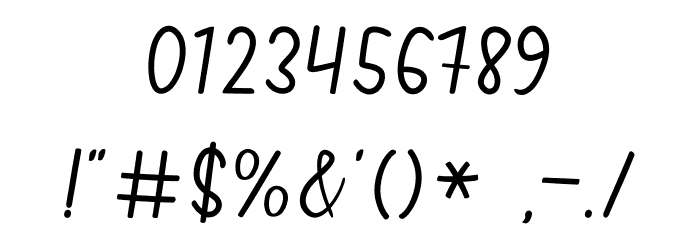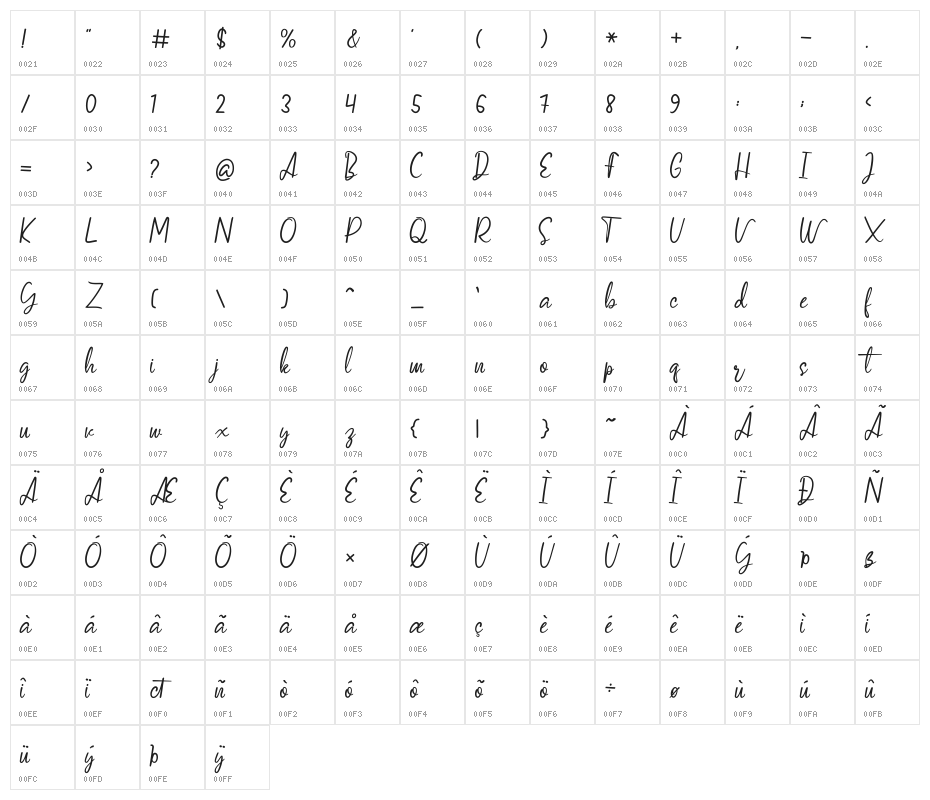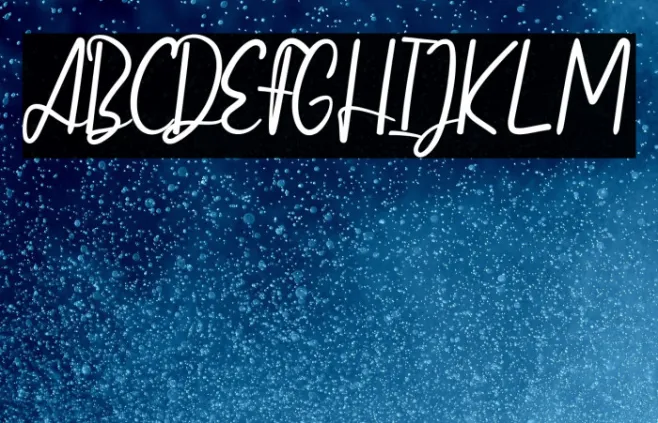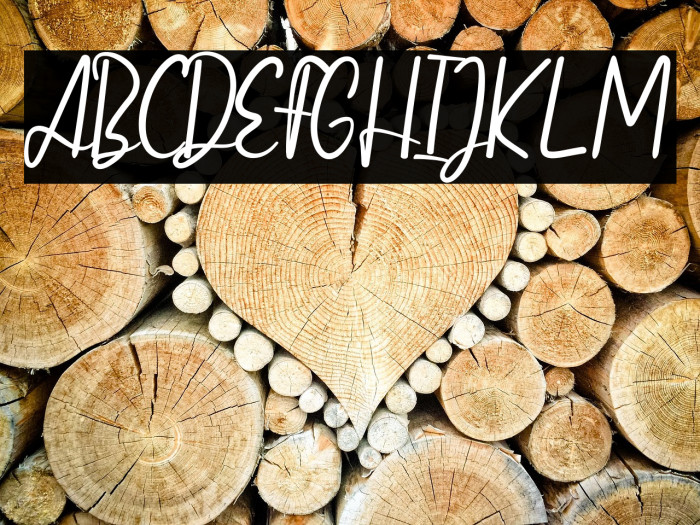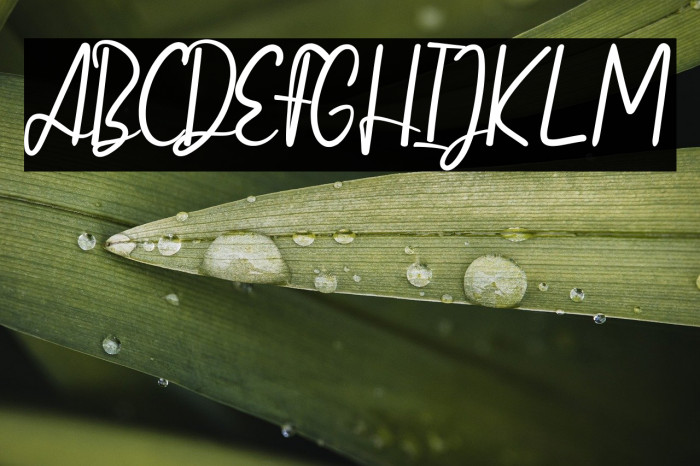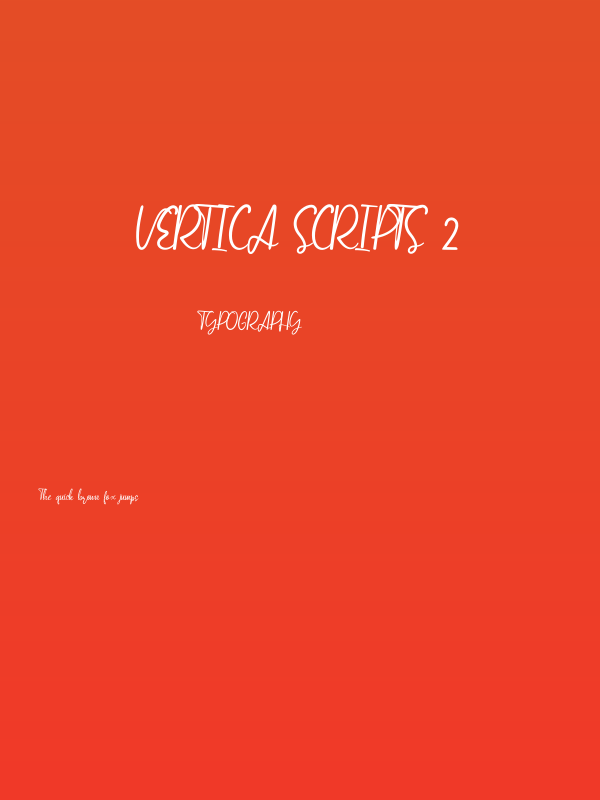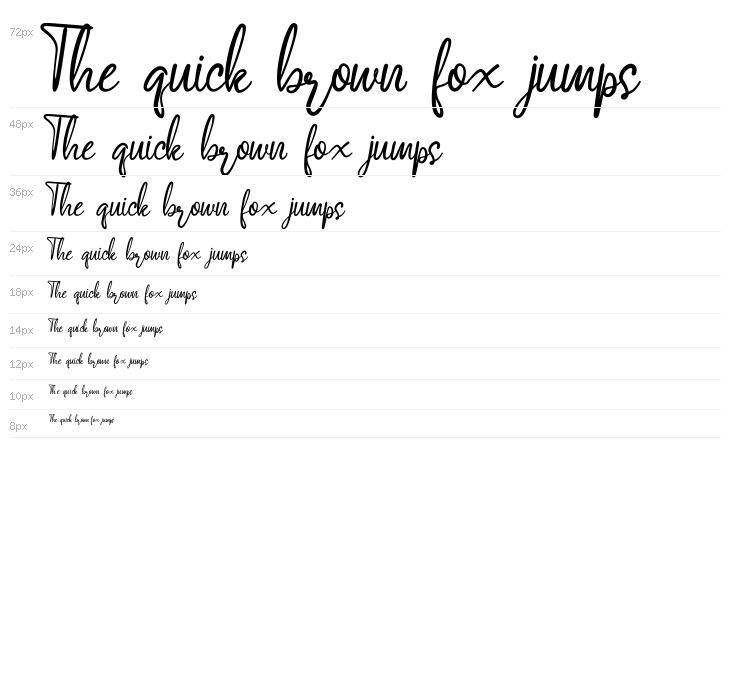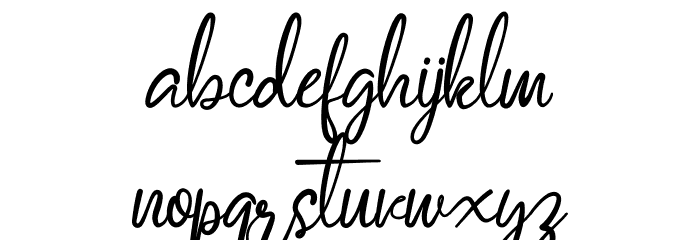
Vertica Scripts 2 Font
Vertica Scripts 2 Description
This font features a lively and dynamic script style, characterized by its flowing and interconnected letterforms. The uppercase letters are bold and slightly slanted, giving a sense of movement and elegance. The lowercase letters maintain a consistent cursive style, with smooth curves and loops that enhance readability. The numerals are clear and distinct, matching the overall script aesthetic. Special characters are thoughtfully designed to complement the letterforms, ensuring a cohesive look across all glyphs. This font exudes a modern yet playful vibe, making it suitable for a variety of creative applications.
Use CaseLogos, Invitations, Greeting Cards
Proposed ProjectsIdeal for wedding invitations, greeting cards, logos, and branding materials that require a personal touch.